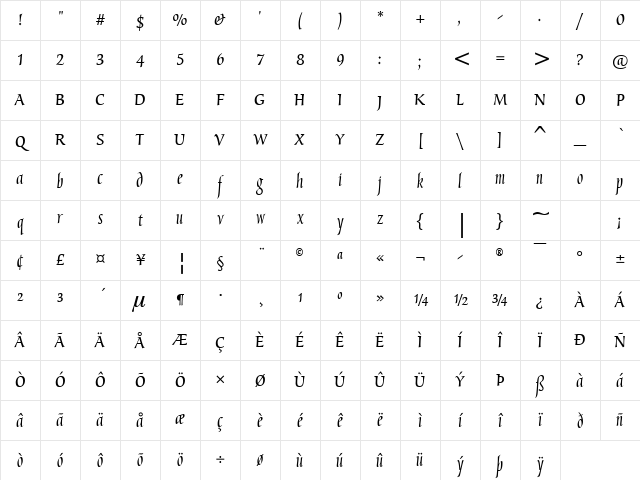
AudreyTwo SWC Regular
Design Context for AudreyTwo SWC
AudreyTwo SWC is a composed and adaptable typeface that performs quietly and consistently across a wide range of design contexts.
Pro Tip: Use AudreyTwo SWC in both headline and body roles to test its range before committing to a single application.